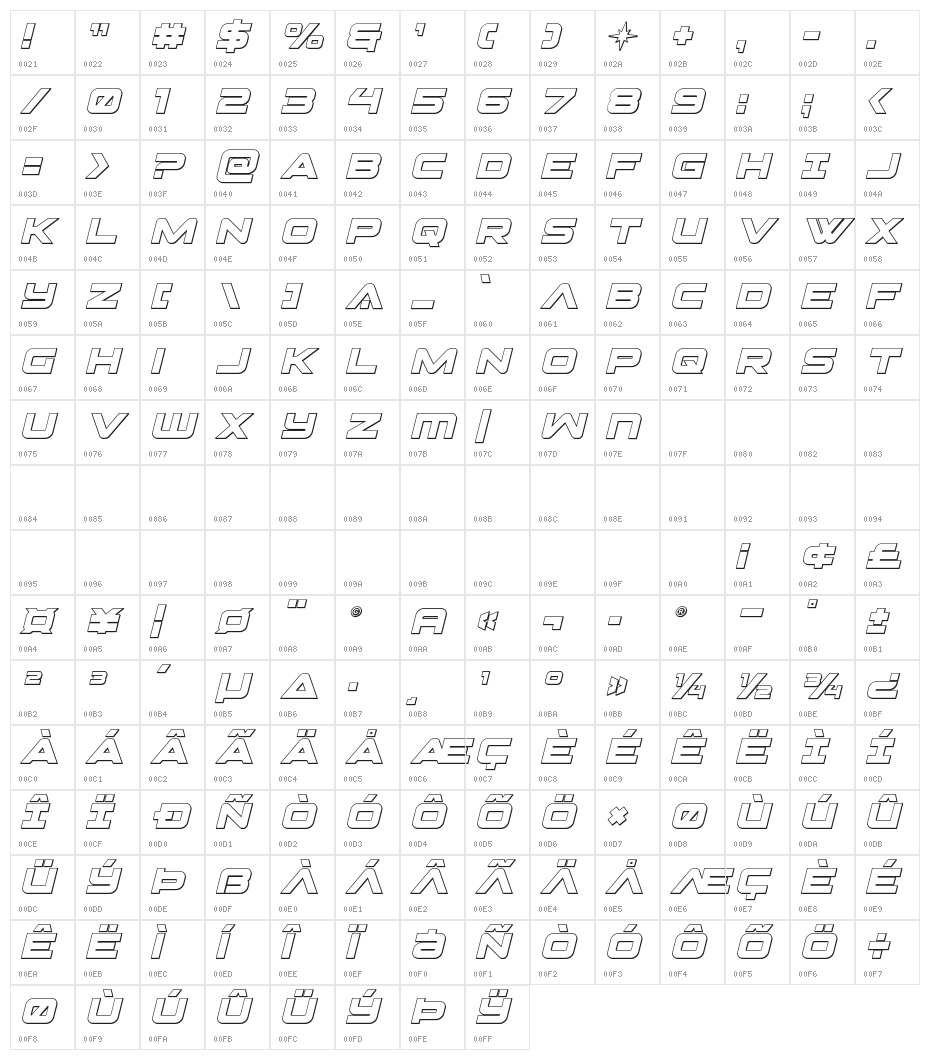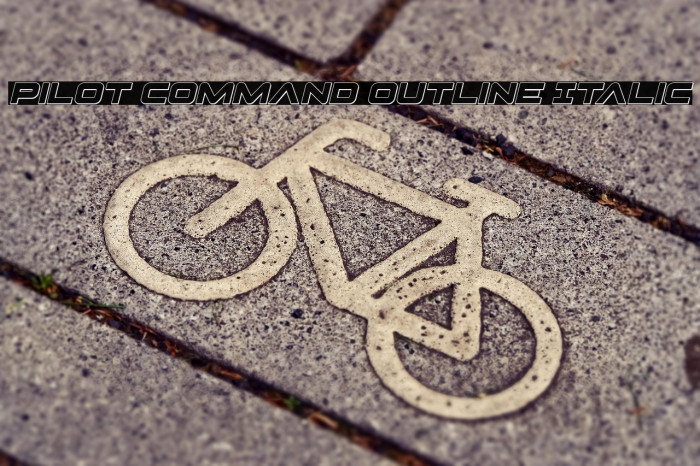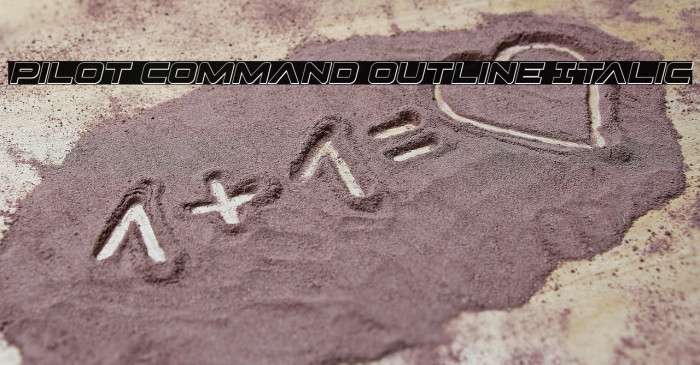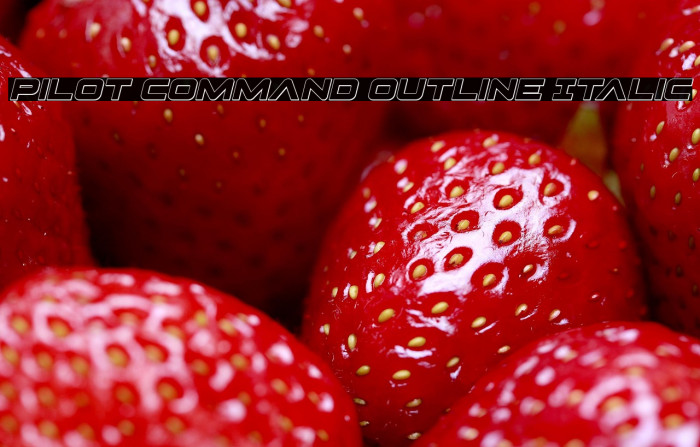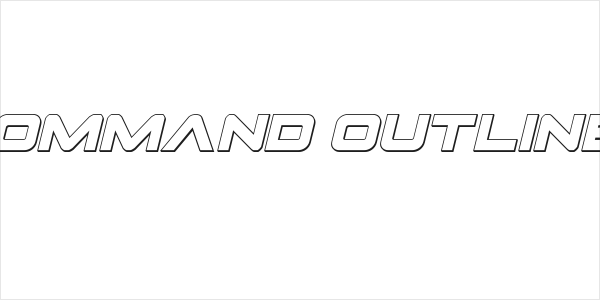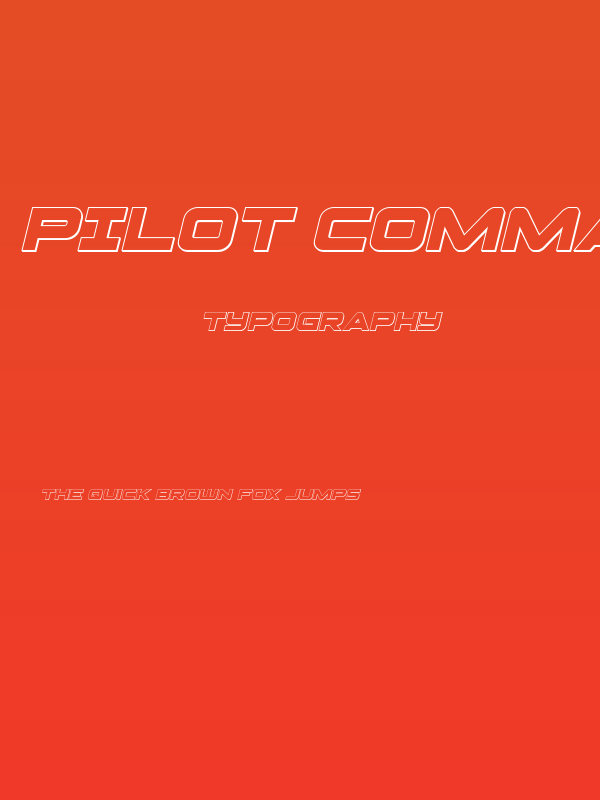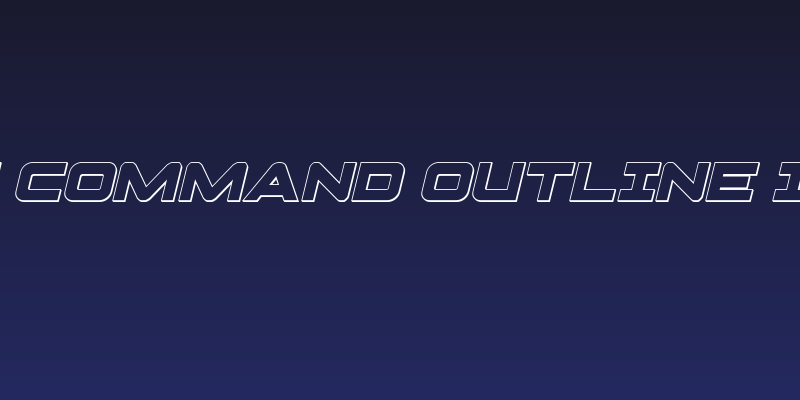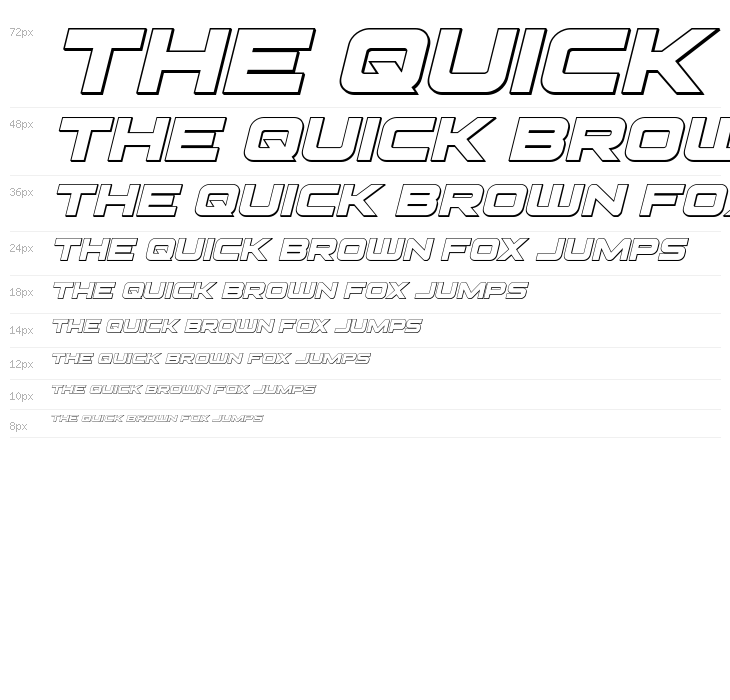
Pilot Command Outline Italic Font
Pilot Command Outline Italic Description
This font features a bold, italicized outline style that gives it a dynamic and futuristic appearance. The uppercase and lowercase letters are designed with sharp angles and clean lines, creating a sense of movement and speed. The numbers and special characters maintain this consistent style, making the font versatile for various applications. The outline effect adds a unique dimension, making the characters stand out while maintaining readability. This font is ideal for projects that require a modern and edgy look, such as technology branding, sports team logos, or sci-fi themed designs.
| Proposed Projects | Ideal for technology branding, sports team logos, sci-fi themed designs, and modern advertising. |